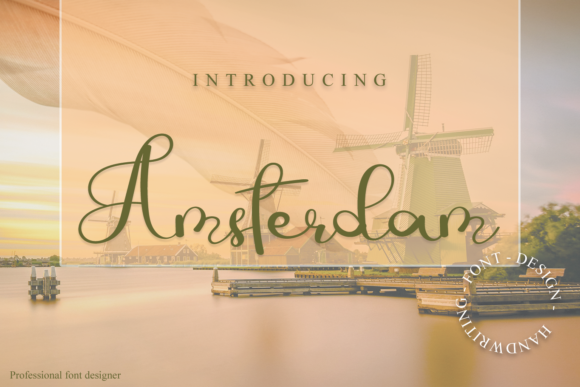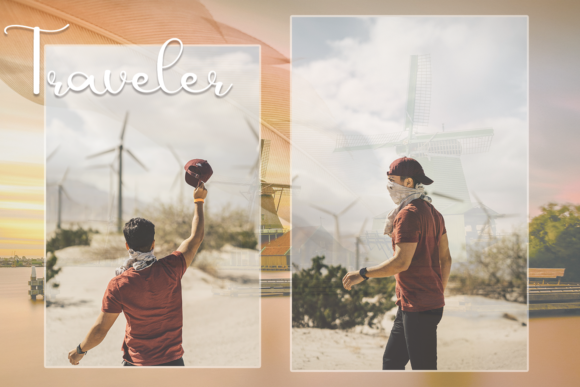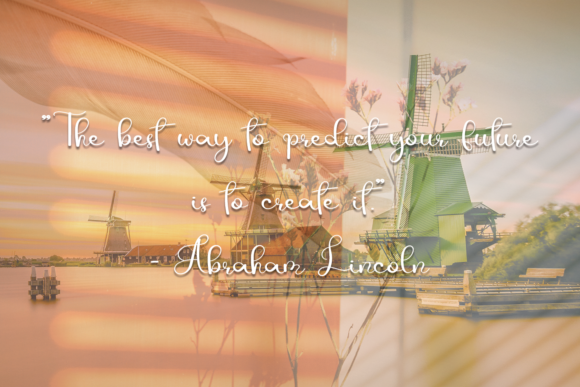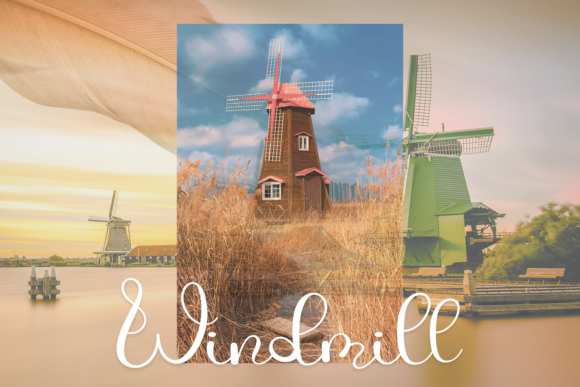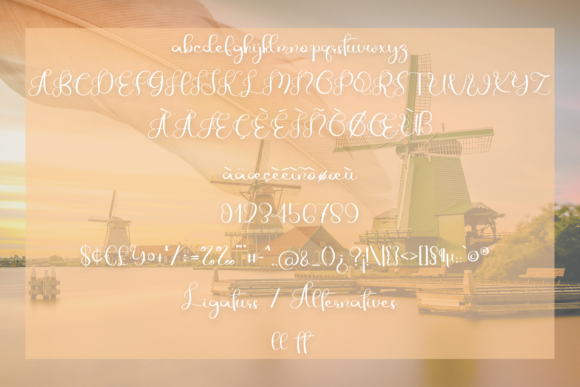
Amsterdam Font
About Amsterdam Font
Amsterdam is a fashionable script font. It is neatly crafted and highly detailed. Whatever the topic, this font will be a wonderful asset to your font library, as it has the potential to enhance any creation.